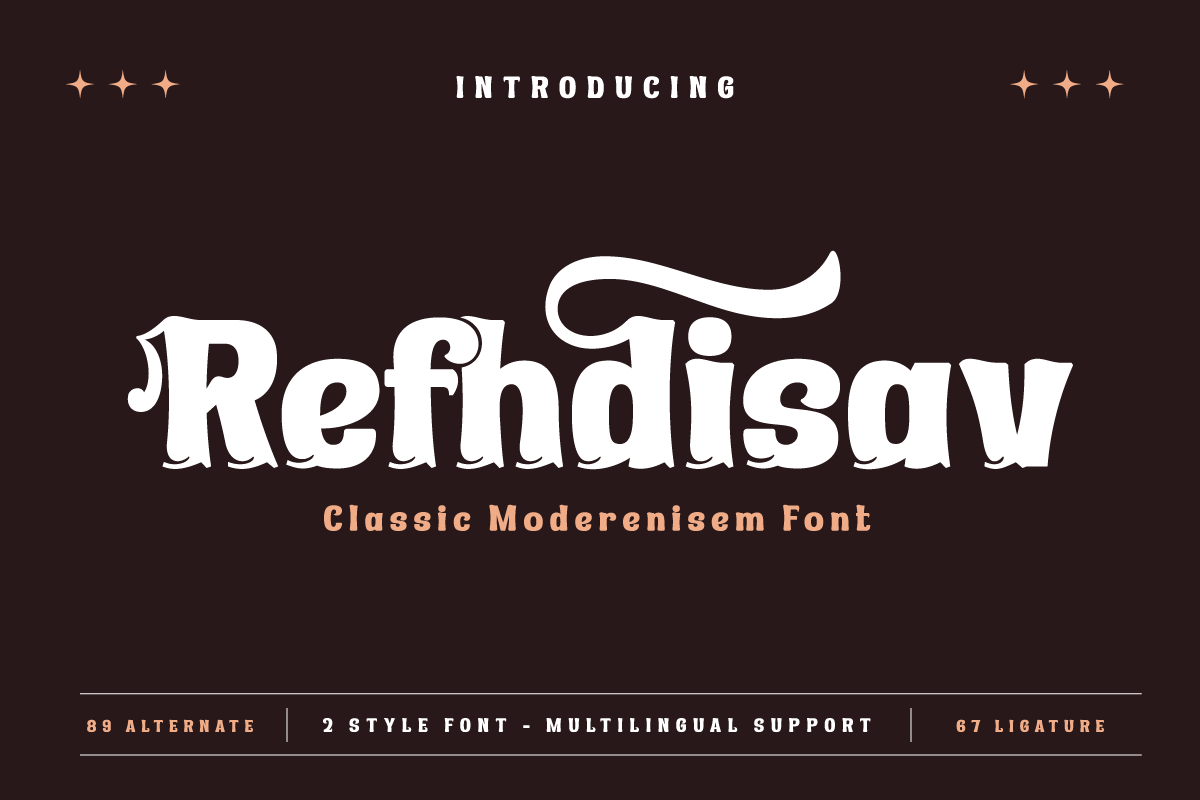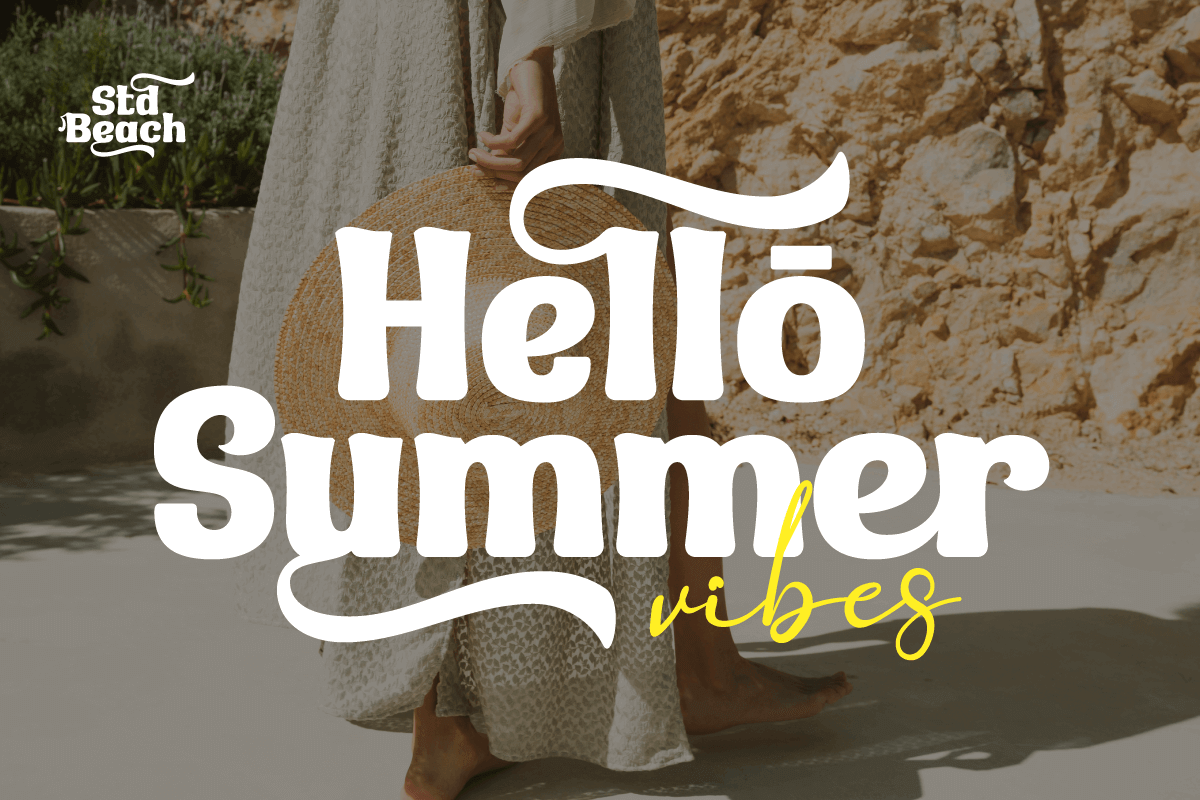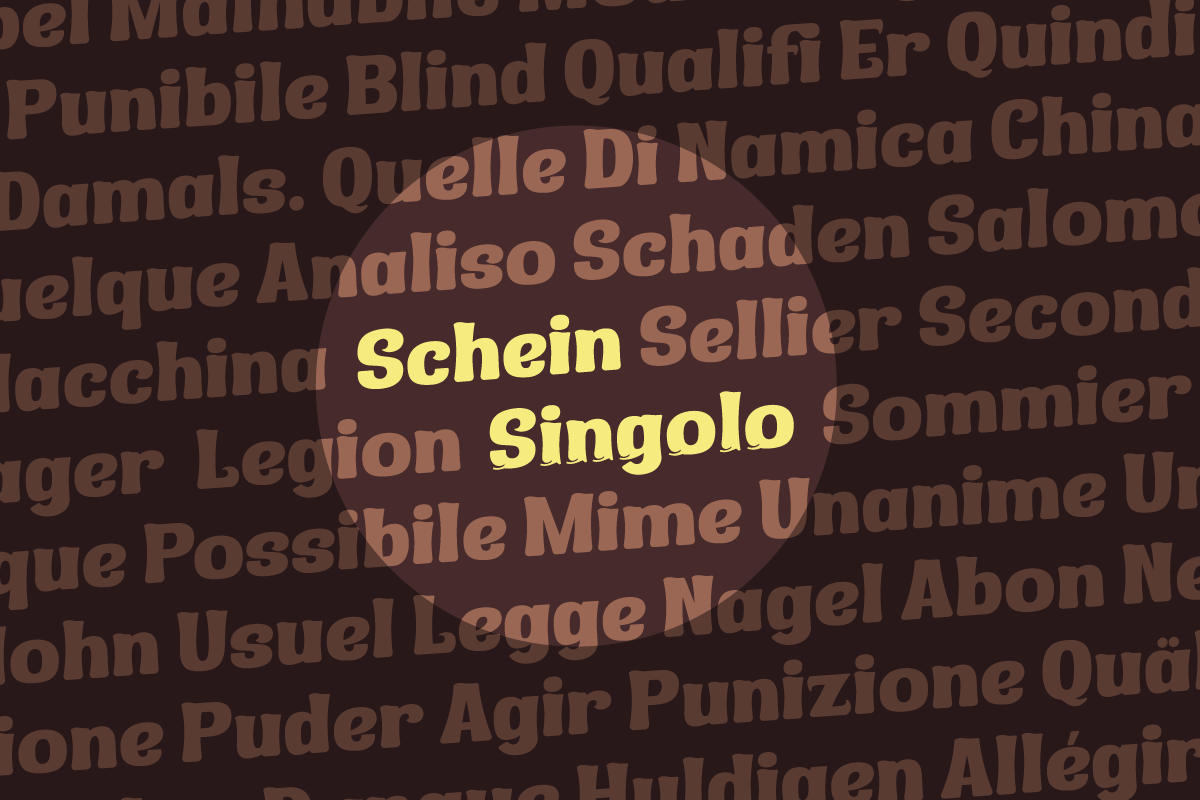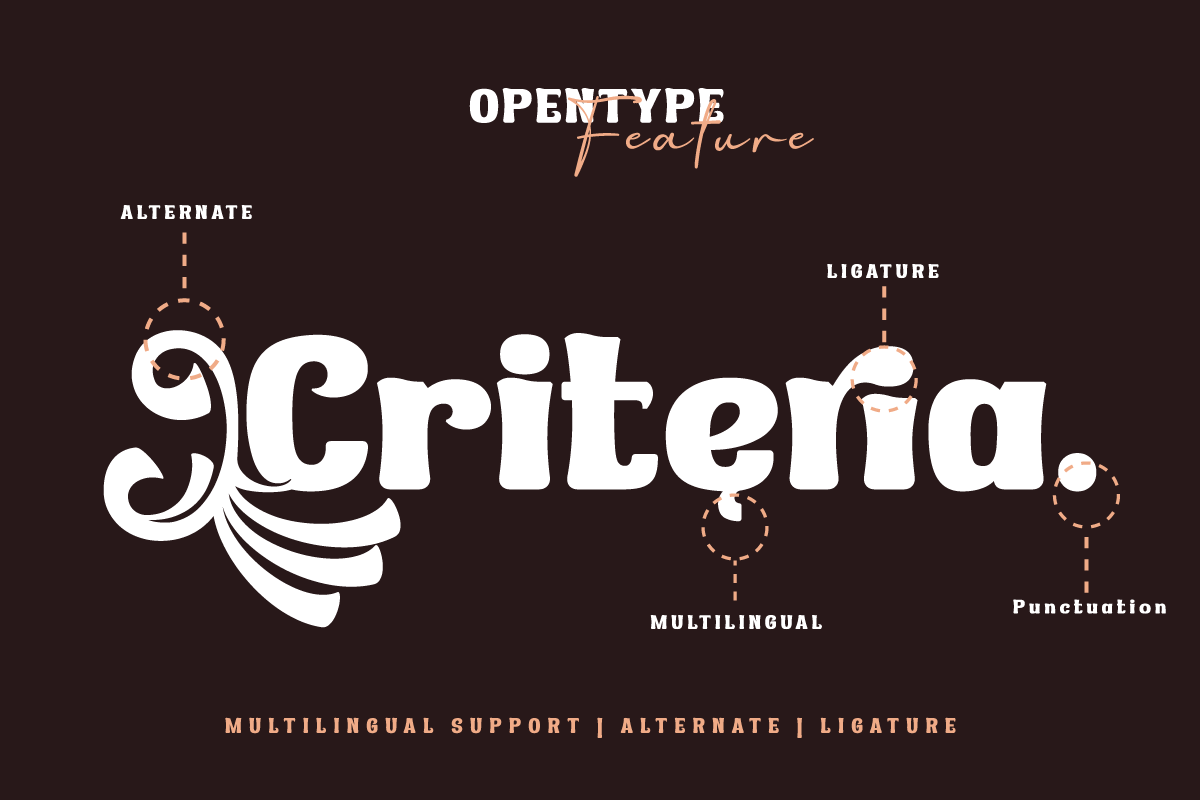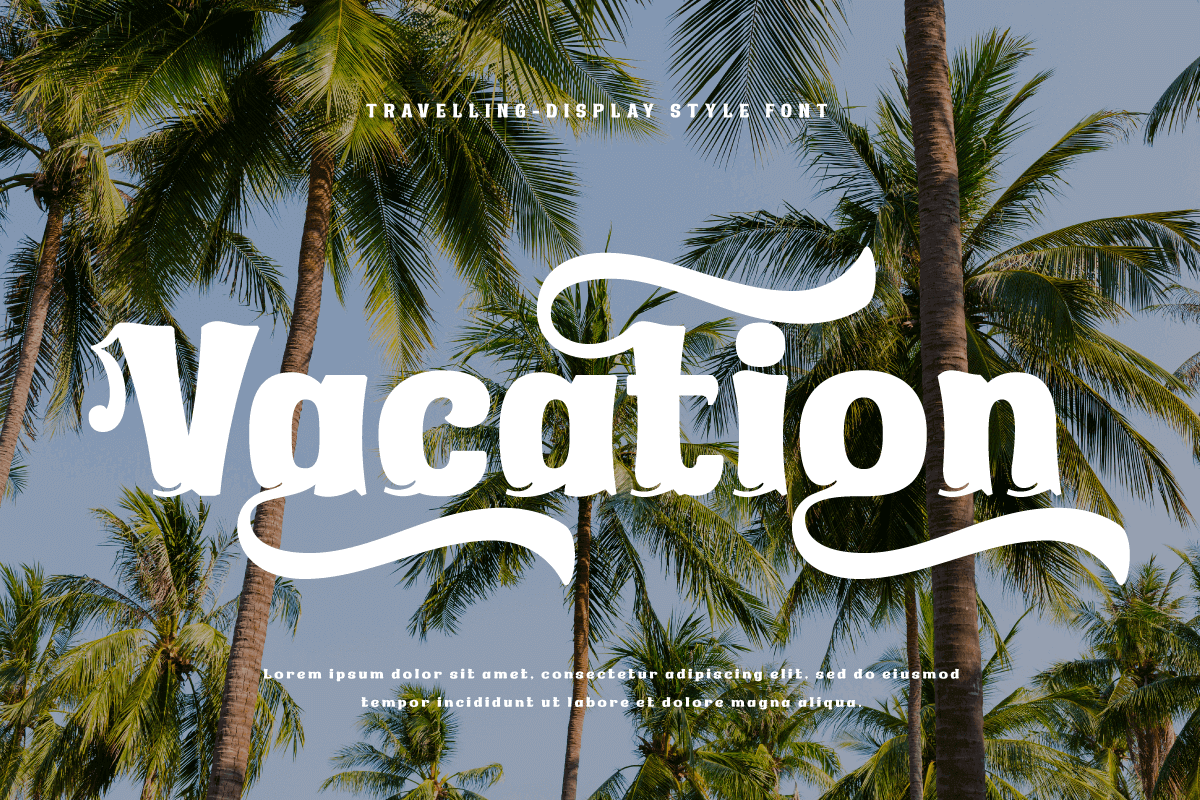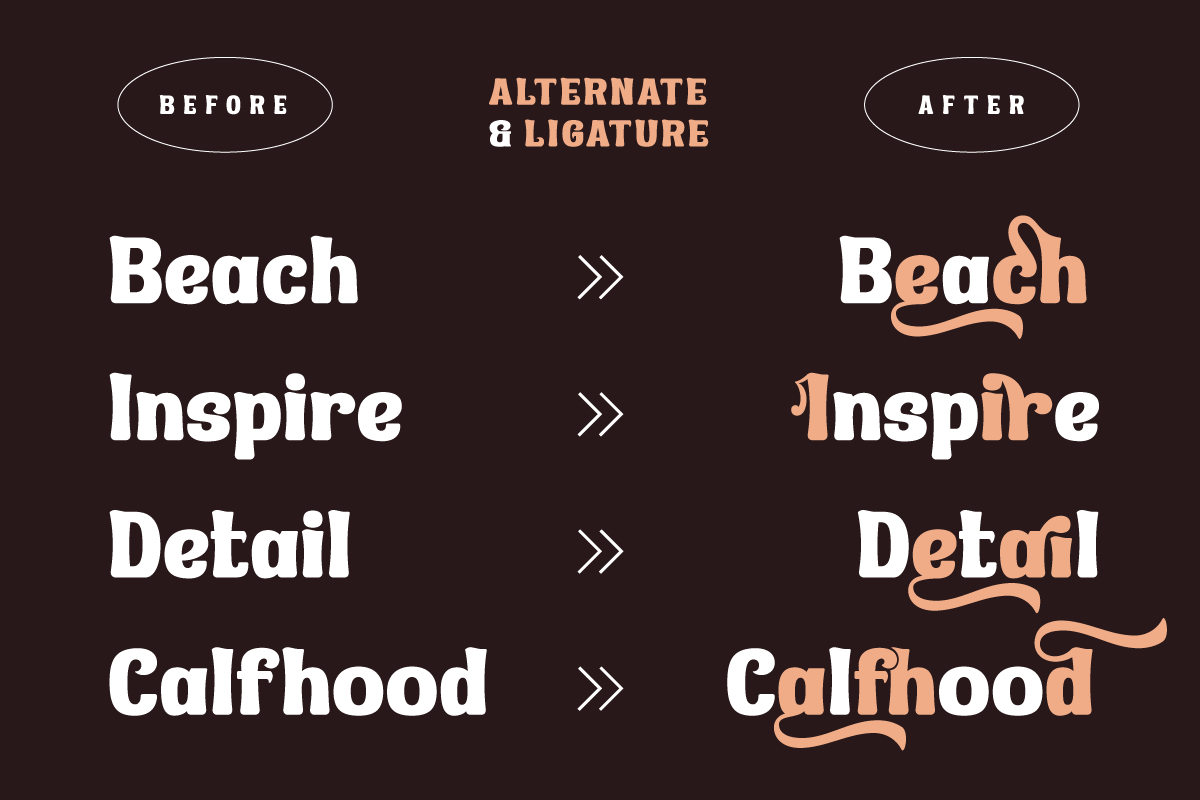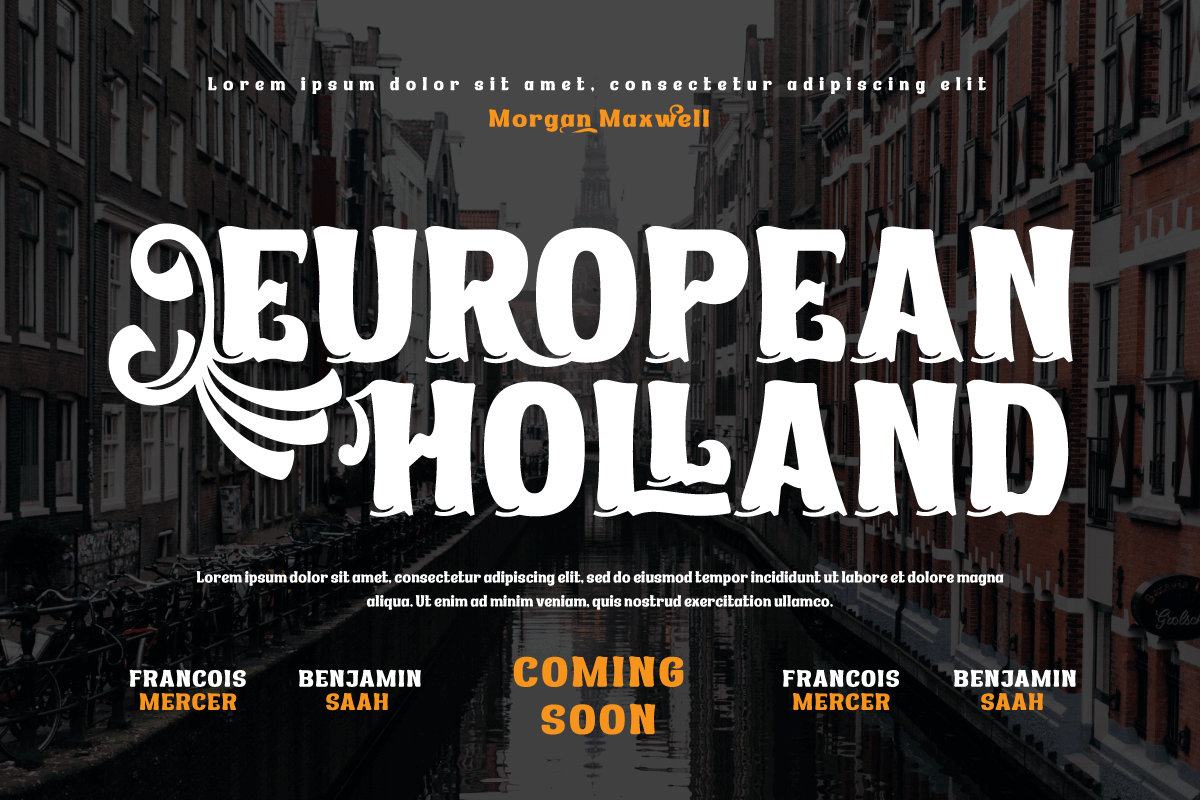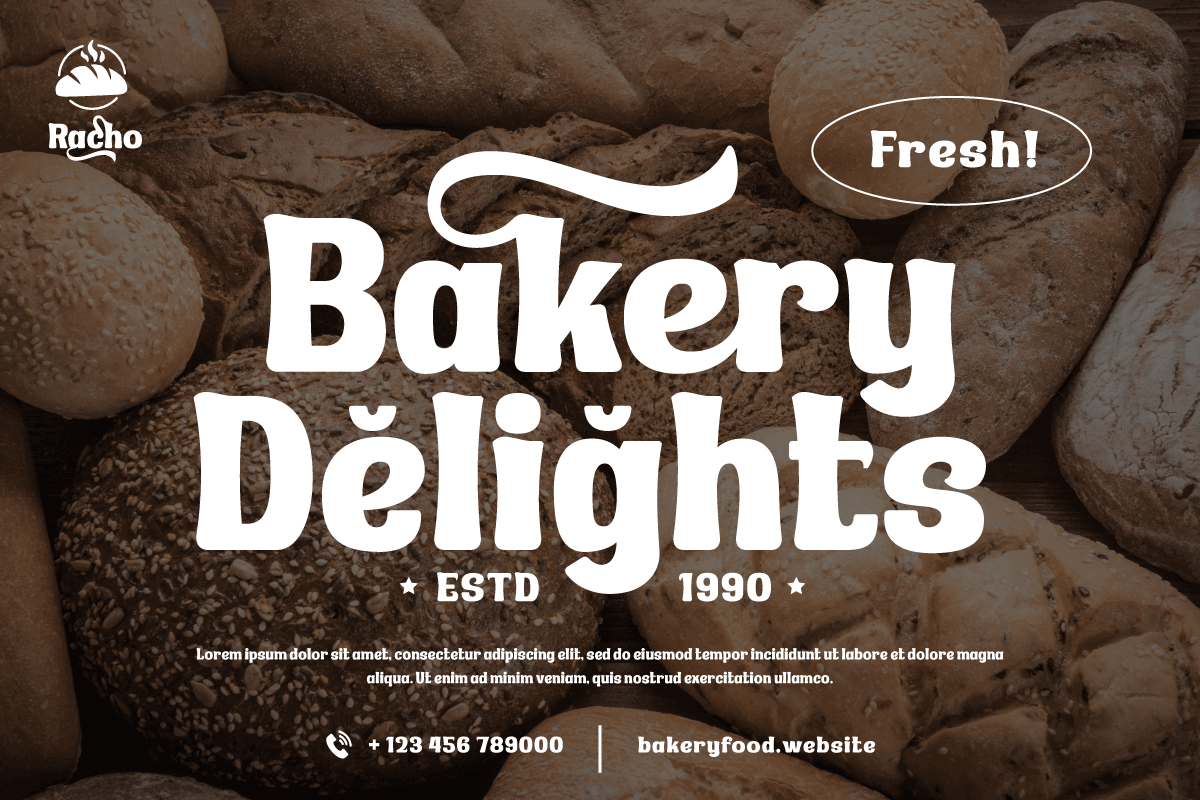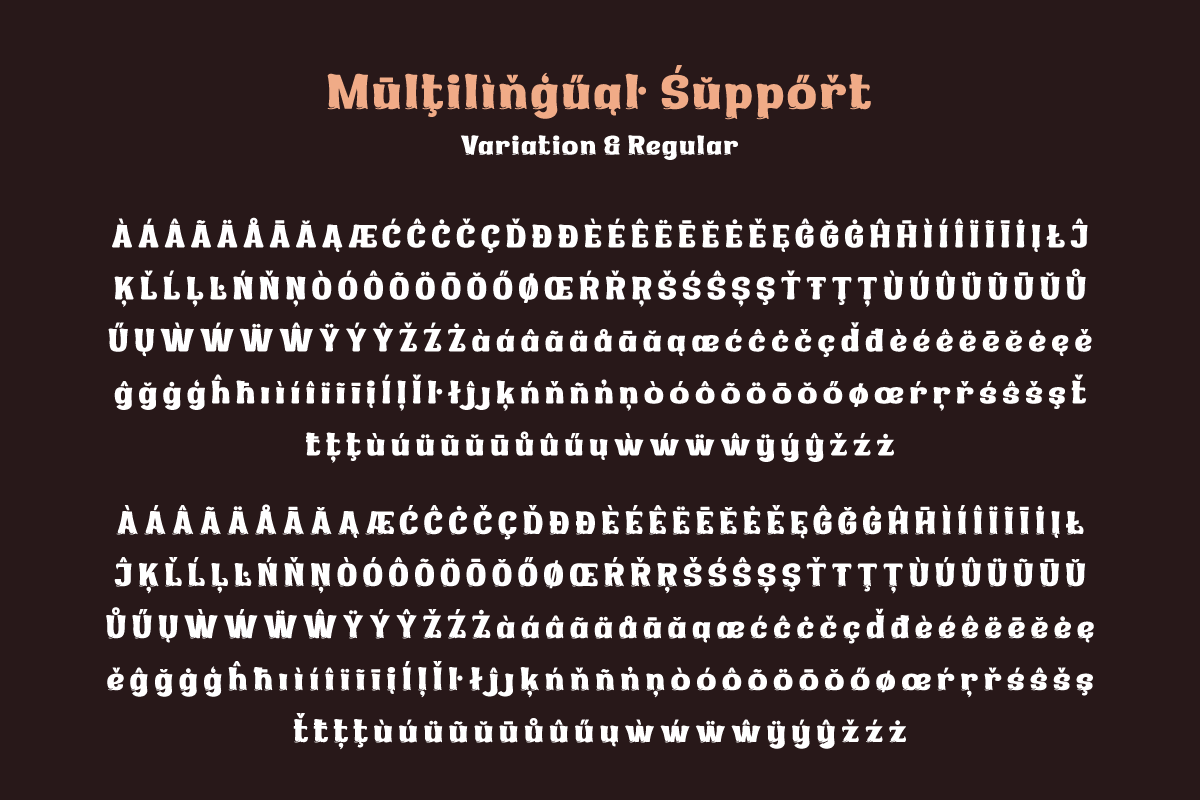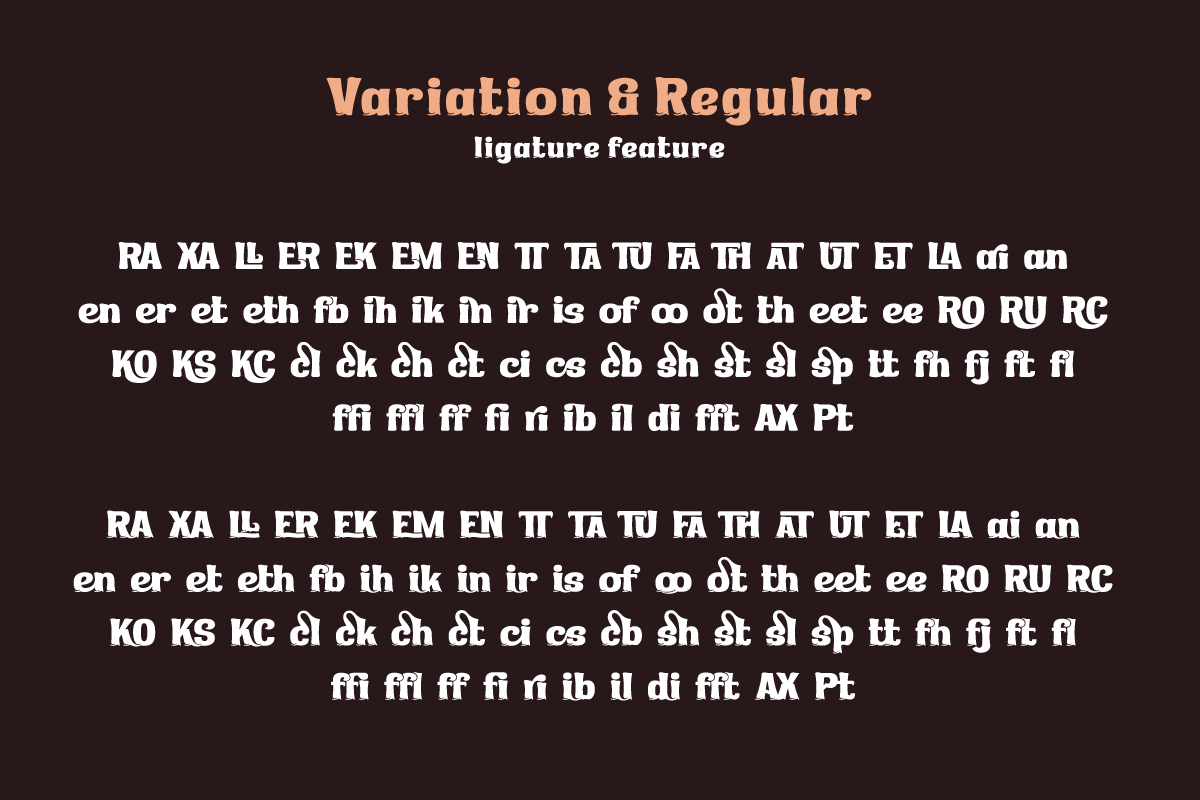
5. Refhdisav | Serif Classic Modernism
Refhdisav 01
Refhdisav | Serif Classic Modernism
Regards! Get to know Refdisav, a classic serif font that’s ready to add a magical touch to your design projects! With an elegant classic modernism theme, this font is the perfect choice to give any creation a timeless, classic feel. Rephdisav comes with an alluring elegance and a captivating serif style. Each letter is designed with great attention to detail and perfect proportions, creating an impressive and professional impression. In every project, Rephdisav is able to exude a classic modernist charm that is so charming.
Not only that but Rephdisav is also equipped with great features such as ligatures and alternative characters that give flexibility in experimenting with interesting and unique letter combinations. You can easily create designs that are creative and different from the others.
Apart from that, Rephdisav also supports multilingualism, allowing you to easily reach an international audience and broaden the scope of your designs. Whatever language you use, Rephdisav will be a loyal partner who is ready to give beauty and perfection to every design.
With Refdisav, you can create works that depict the luxury and timelessness of classic modernism. Show an elegant, professional, and classic style in every touch of your design. Don’t miss the chance to own this eye-catching classic serif font. Rephdisav will be a bridge to satisfaction and beauty in your design projects.